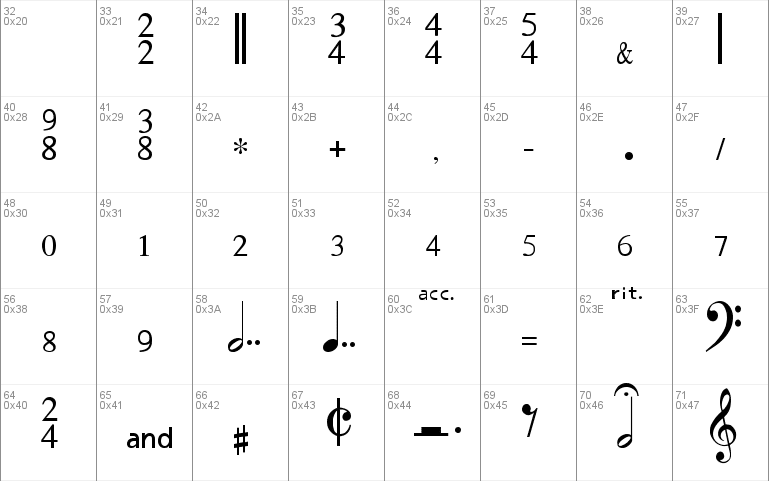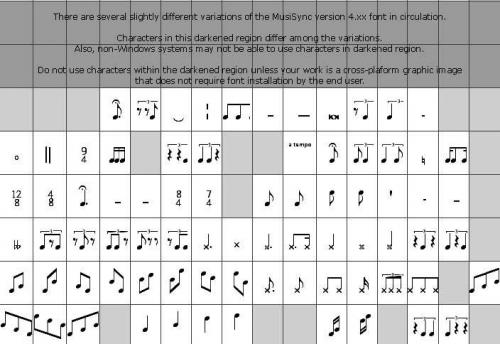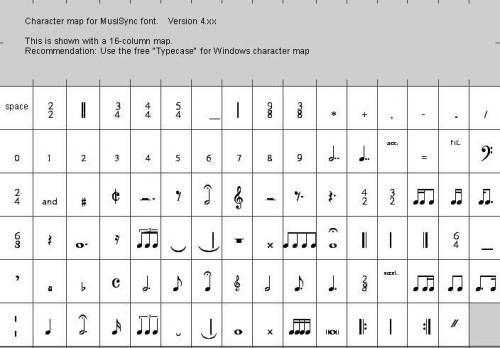
MusiSync depicts notes without drawing a staff, and without representing pitch. It is designed for the special purpose of showing the timing relationships in a line of music. (I also added some miscellaneous items, just because there was room in the font.) For example, when learning a song in multi-part harmony, it may be helpful to remove all information from the music except for note duration. MusiSync resolves timing to the 1/16 note and rest, and includes many combinations of beamed notes and triplets.